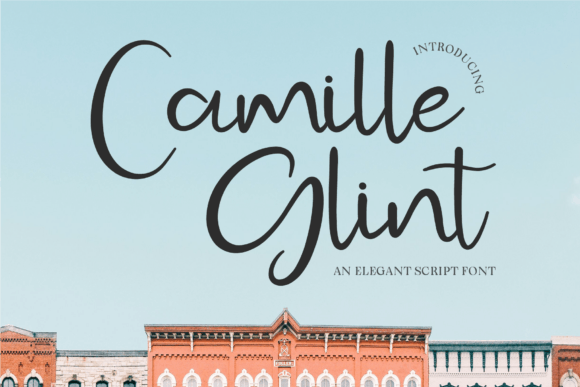
The Elusive Font: A Designer’s Quest for Sophistication
I recall the countless hours I spent searching for the perfect font for a client’s fashion brand. The project required a script that exuded elegance, modernity, and a dash of playfulness. I scoured the internet, tried out numerous fonts, but none seemed to fit the bill. That was until I stumbled upon **Camille Glint**. This dynamic script font has been a game-changer for my design projects, and I’m excited to share its beauty with you.
A Comprehensive Review of Camille Glint
- ✨ Sleek curves and fluid lines that give it a sophisticated and refined look
- ✅ Perfect for fashion-centric branding, chic editorial designs, voguish logos, personalized stationery, and eye-catching social media graphics
- 🌈 Distinguishing strokes and graceful flow that make it a premier choice for projects requiring a harmonious blend of beauty and professionalism
While Camille Glint is an exceptional font, there are a few minor considerations to keep in mind:
- 🤔 Occasional kerning issues may arise, particularly when using the font at smaller sizes or in combination with other fonts
- ⚠️ Limited availability of Cyrillic characters might limit its use for projects requiring extensive language support
The Inspiration Behind Camille Glint
Camille Glint was designed with the intention of creating a font that embodies the perfect blend of modern elegance and playfulness. The designer aimed to craft a script that would be both sophisticated and approachable, making it suitable for a wide range of creative projects.
Q: What type of projects is Camille Glint best suited for?
A: Camille Glint is ideal for fashion-centric branding, chic editorial designs, voguish logos, personalized stationery, and eye-catching social media graphics.
Q: Is Camille Glint available in multiple languages?
A: While Camille Glint supports a range of languages, it may have limited availability of certain characters, such as Cyrillic.
Q: Can I use Camille Glint in combination with other fonts?
A: Yes, Camille Glint can be paired with other fonts to create visually appealing combinations. Experiment with different font pairings to find the perfect match for your project.